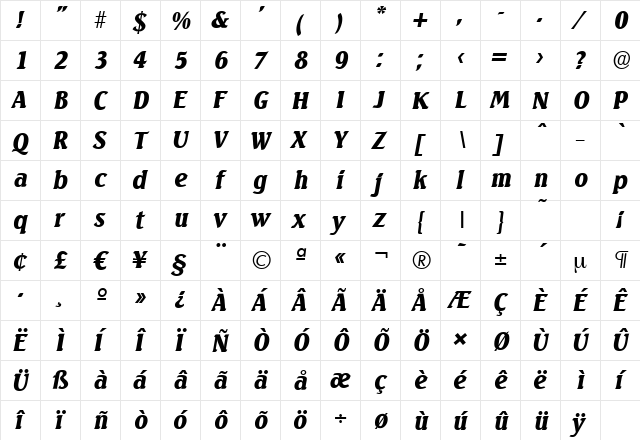
SeagullSerial-Black Italic Font Preview
SeagullSerial-Black Italic
Design Context for SeagullSerial-Black Typeface
SeagullSerial-Black is a composed and adaptable typeface that performs quietly and consistently across a wide range of design contexts. The slanted form adds forward momentum and visual energy.